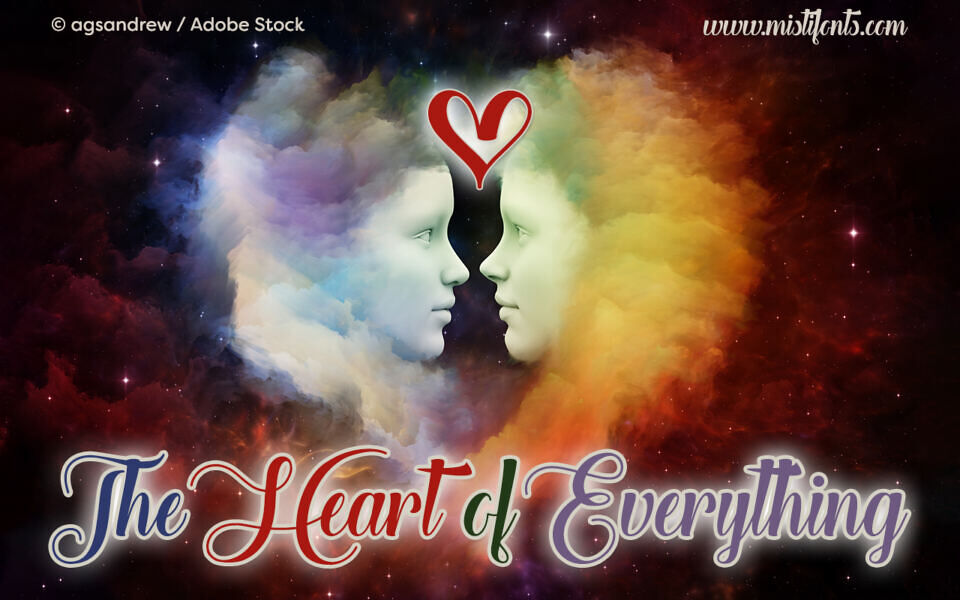
The Heart of Everything is an elegant script font with a flowing, handwritten style that brings a soft and romantic feel to any design. Created by Misti’s Fonts, it features smooth curves, decorative swashes, and charming heart accents for a playful touch.
Perfect for invitations, logos, social media graphics, and craft projects, this font adds a feminine and stylish personality while remaining easy to read and versatile across both digital and print designs.